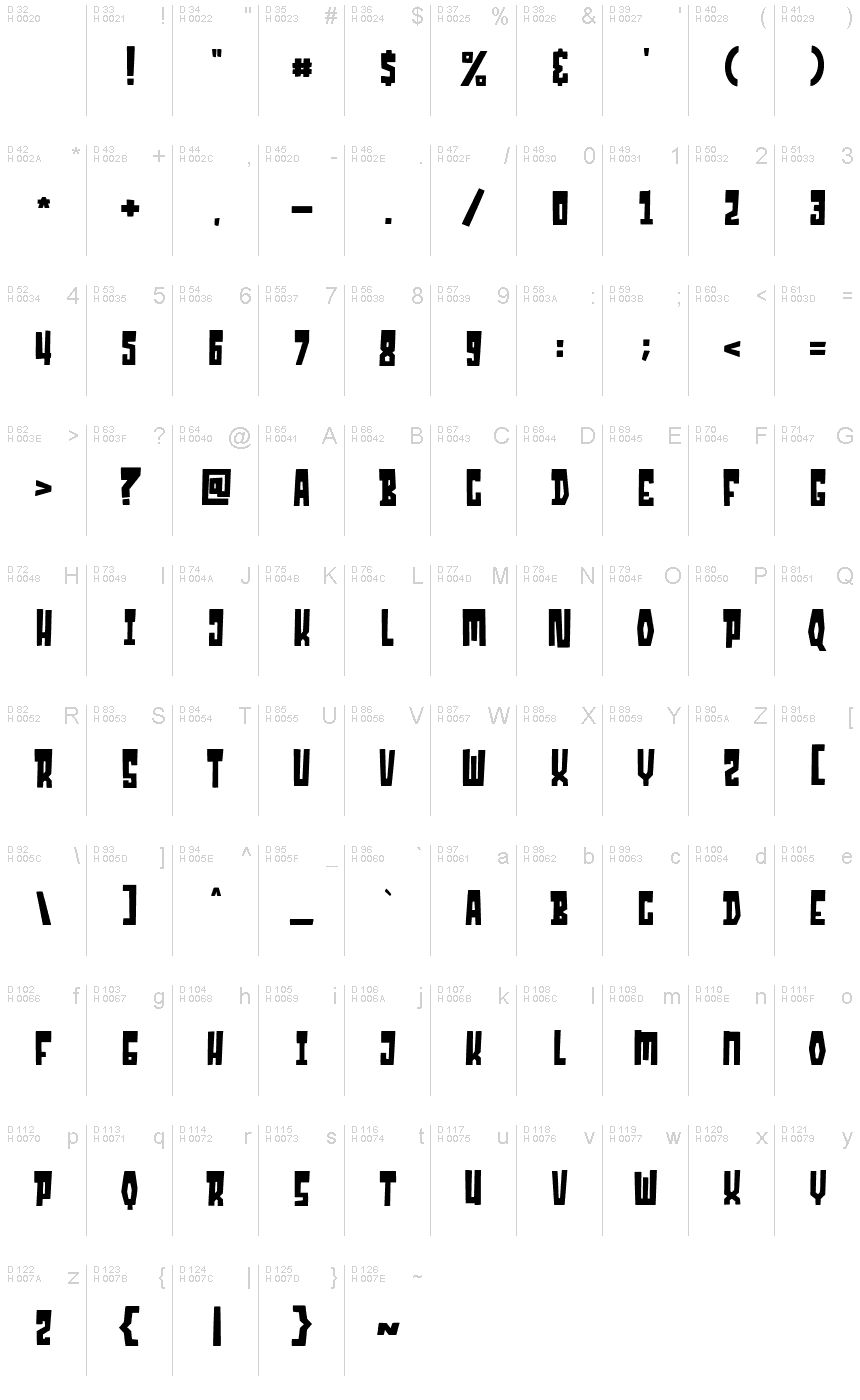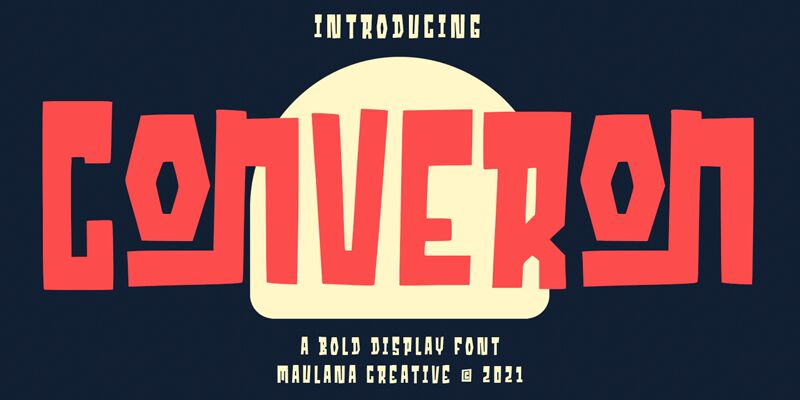
Converon
Introducing Converon, the bold, narrow and edgy cartoon font from Maulana Creative. Perfect for making an impact with projects such as comic books, logos, t-shirt designs and poster art.